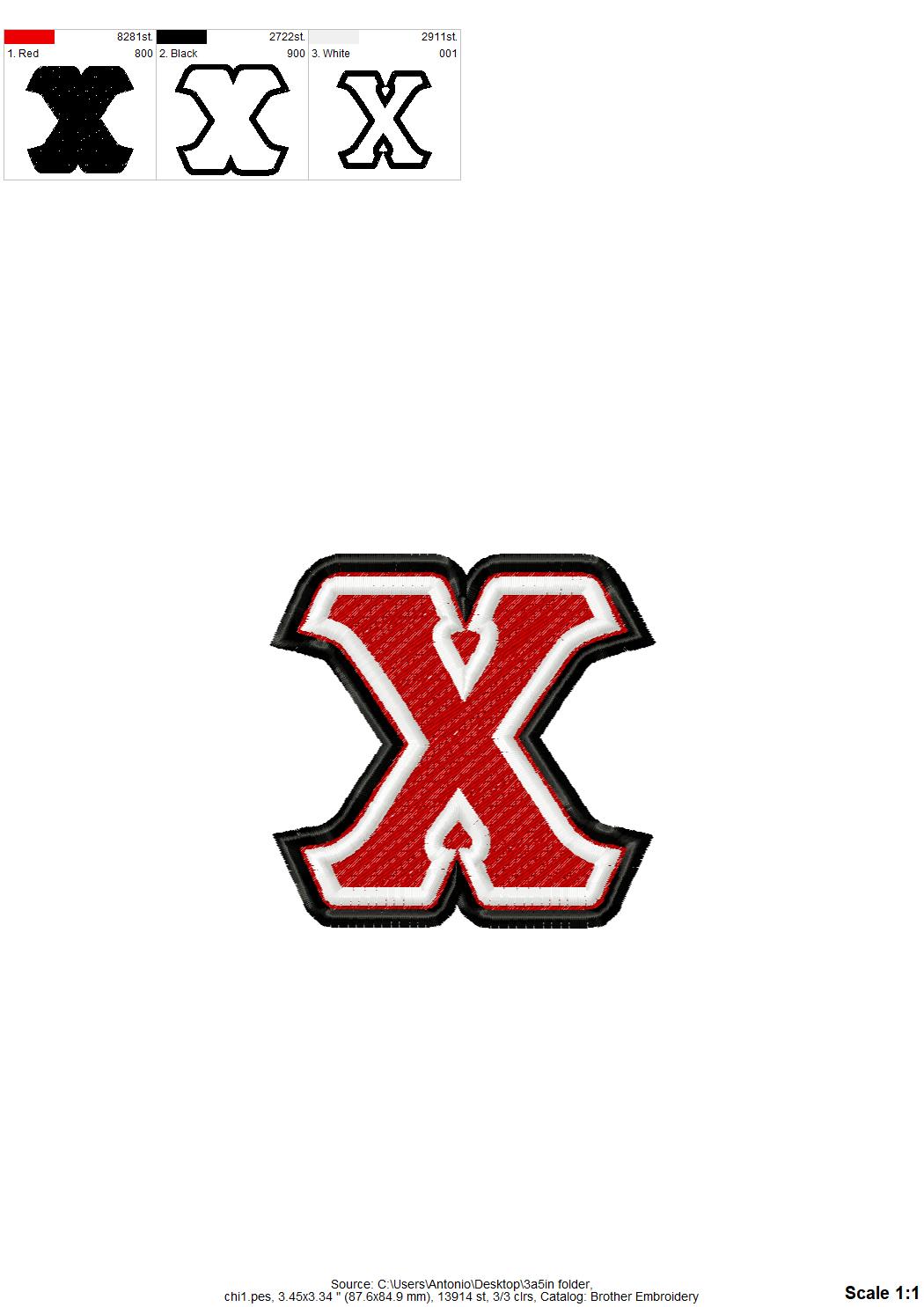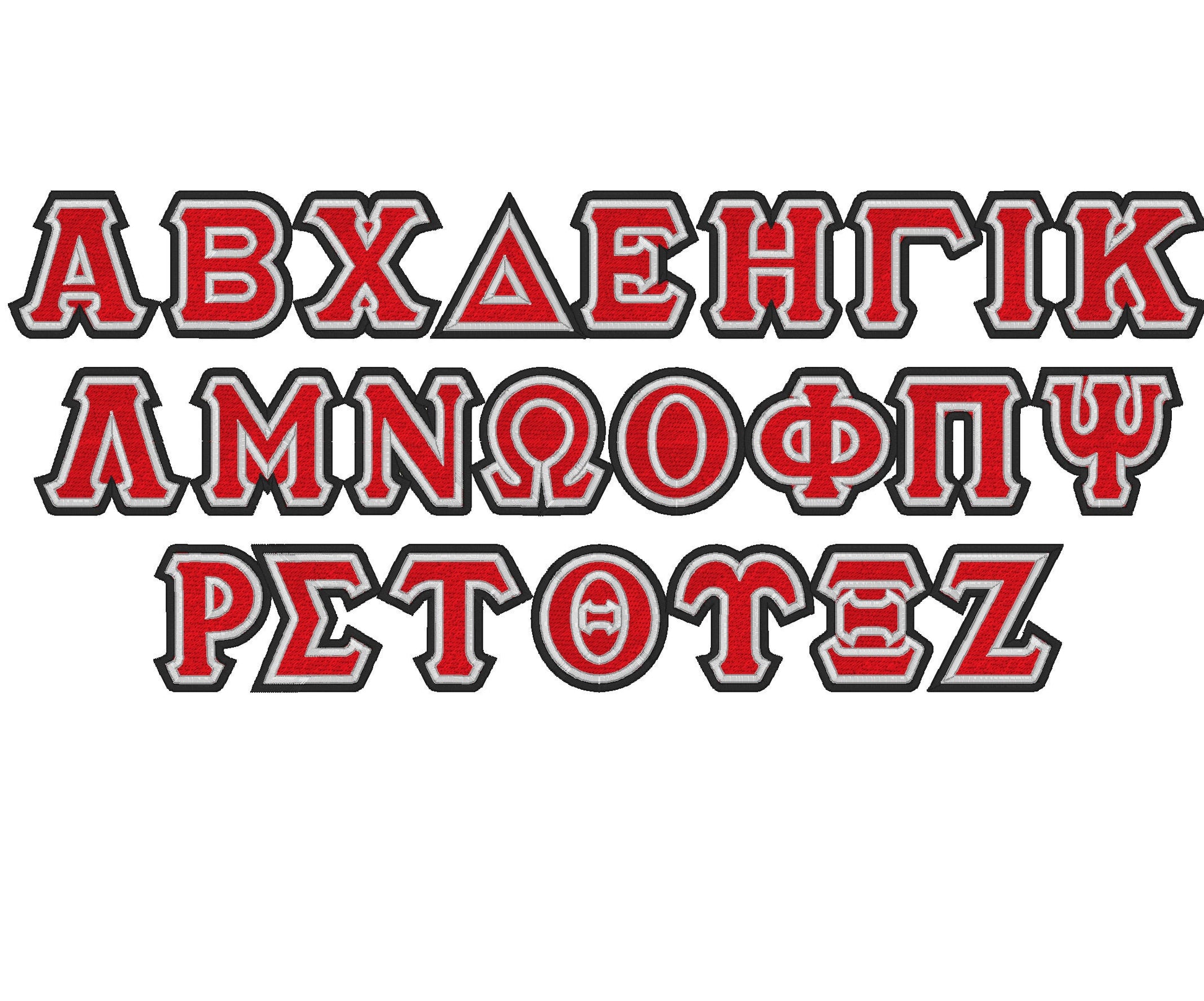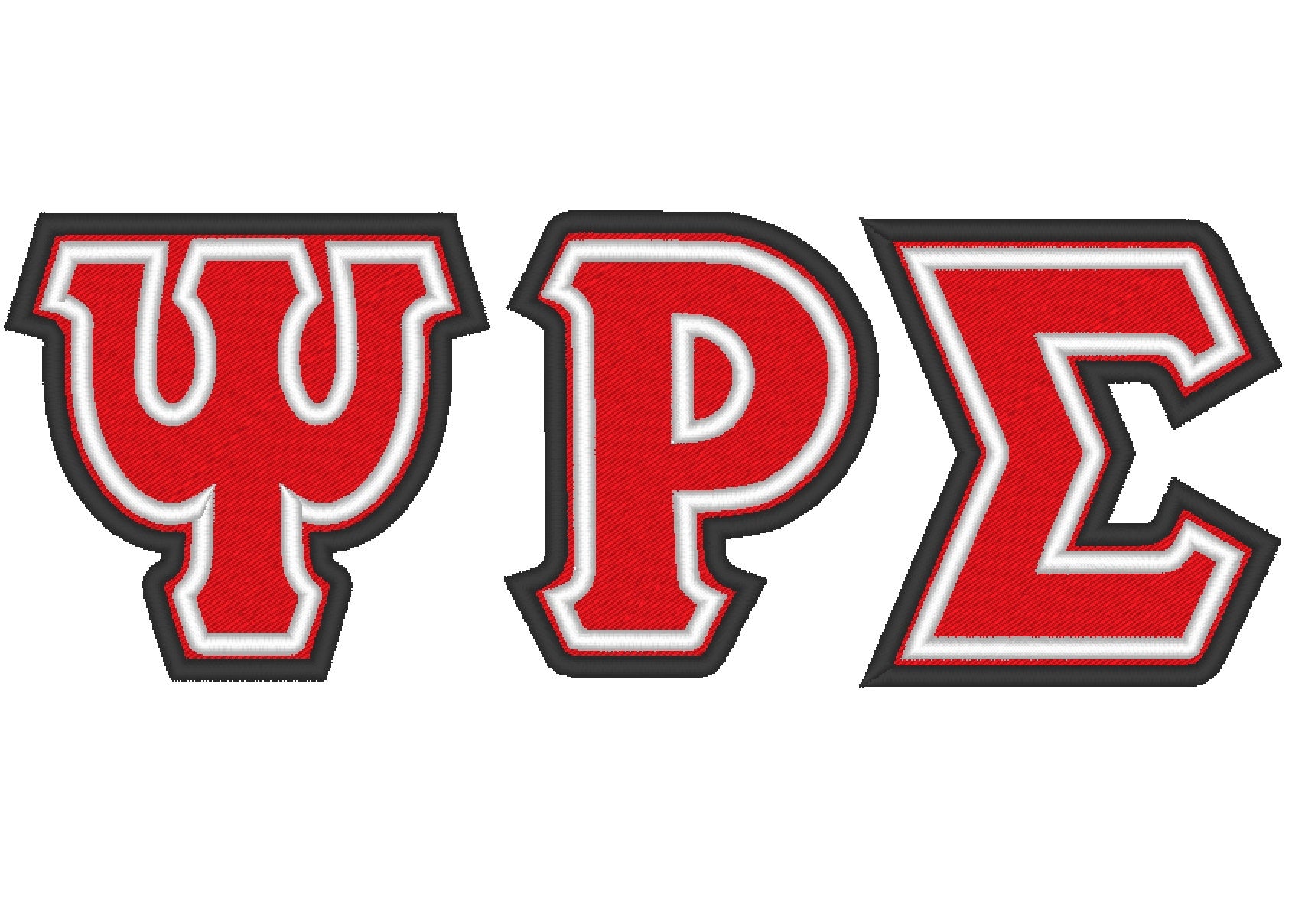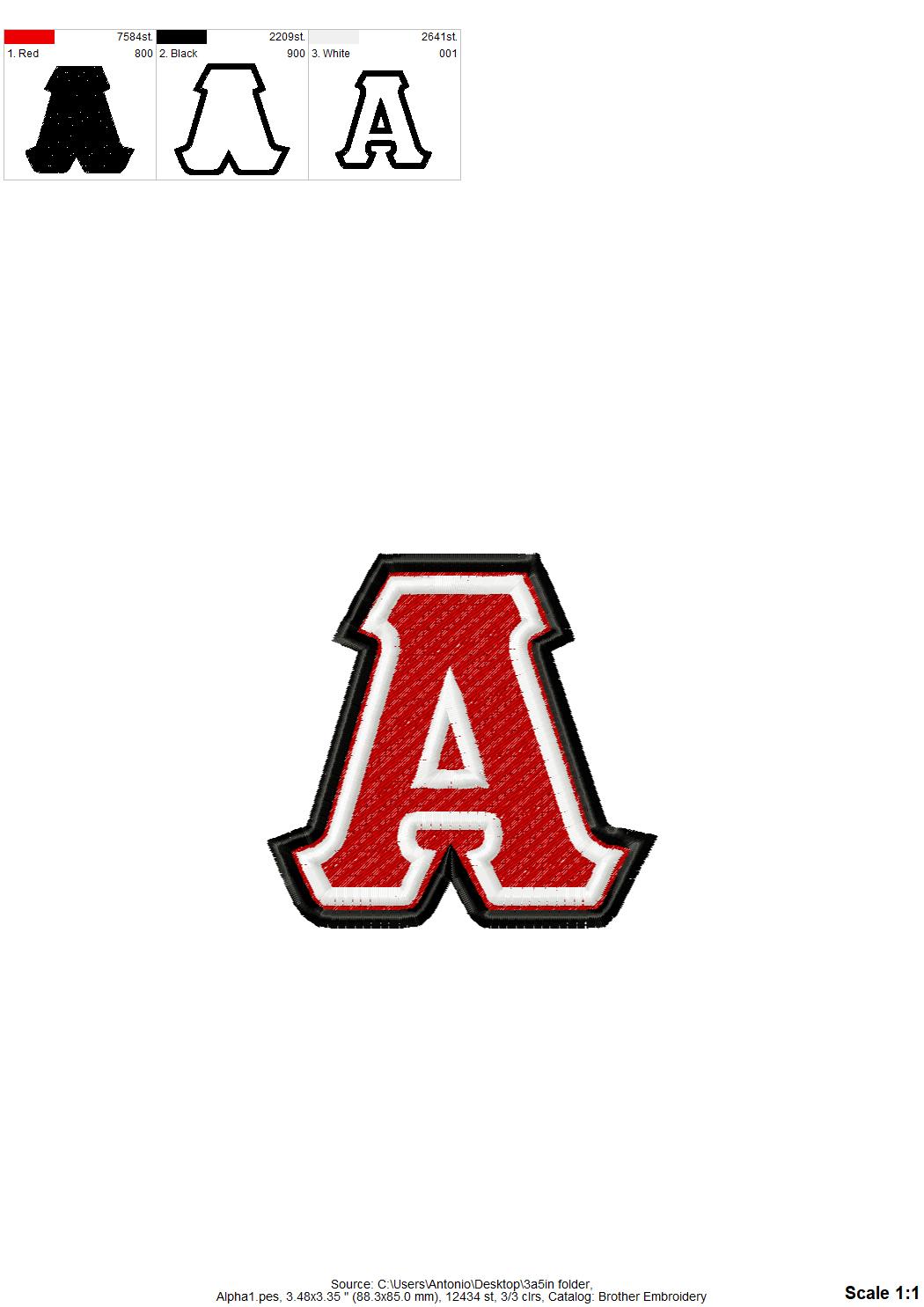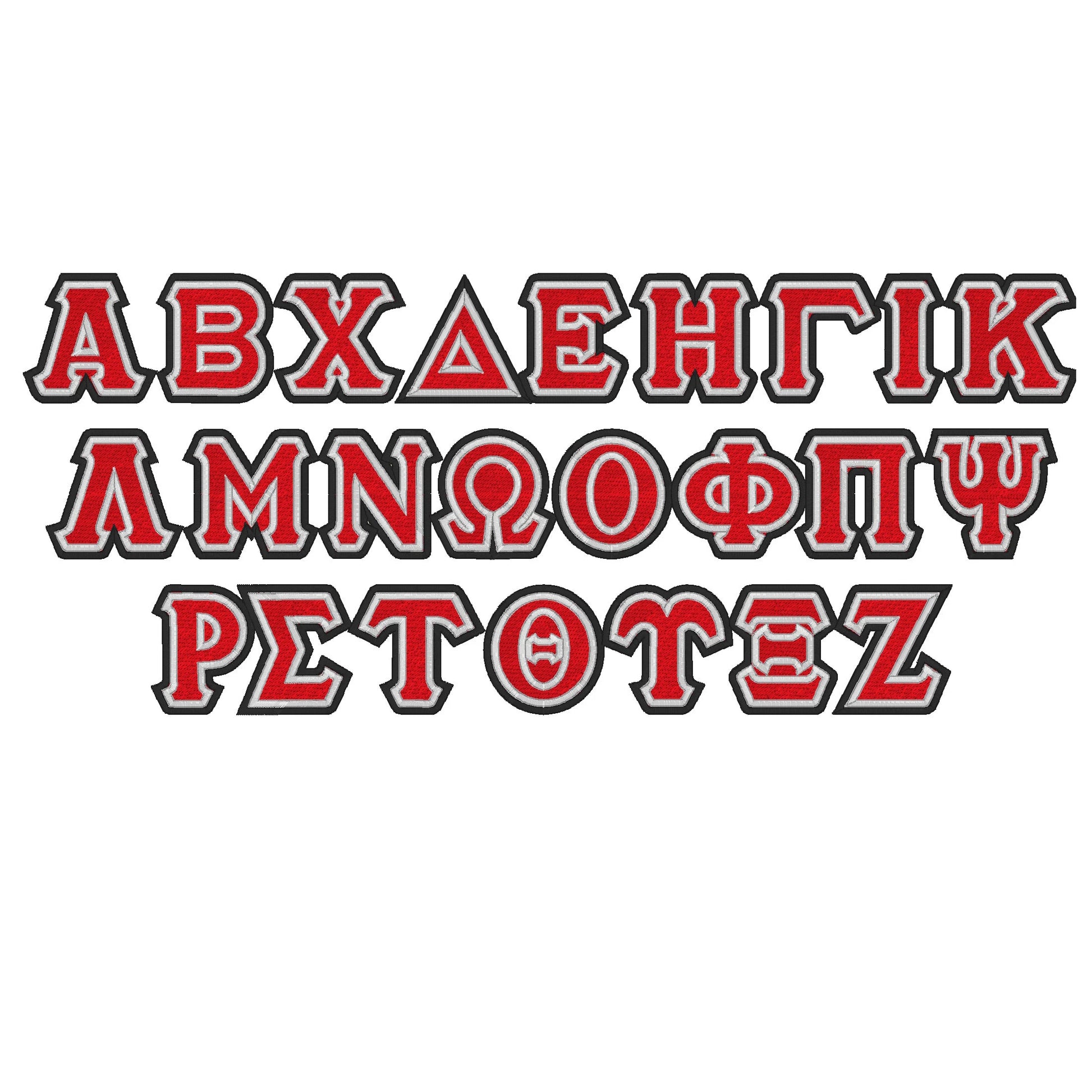
Or click to open the linkThe classic Greek alphabet in fill stitch with two outlines, in three colors, for sorority and fraternity letters. Great on shirts, jerseys, bags and gifts.
All 24 Greek letters, fill stitched and finished with a double outline in two contrast colors. Six small sizes: 0.6, 0.8, 1, 1.2, 1.6 and 2 inches.